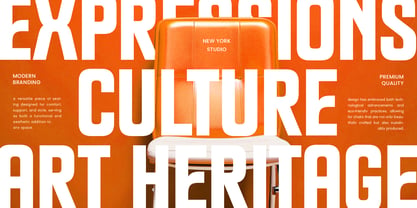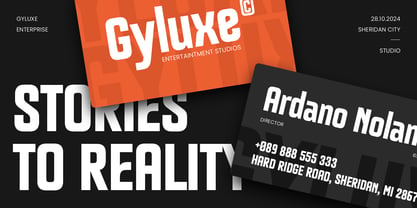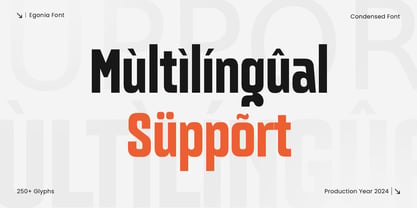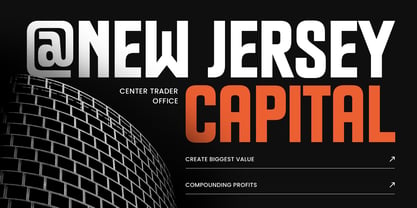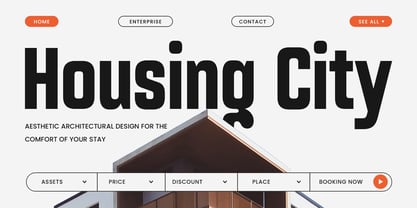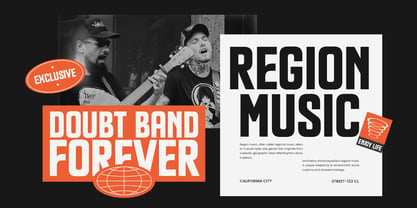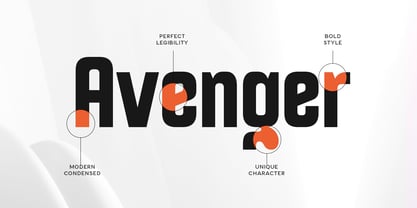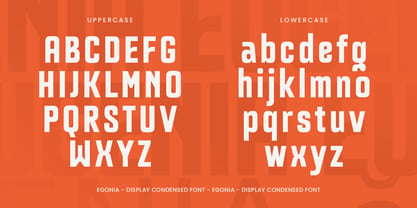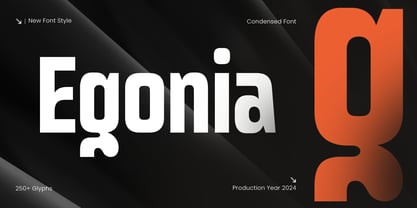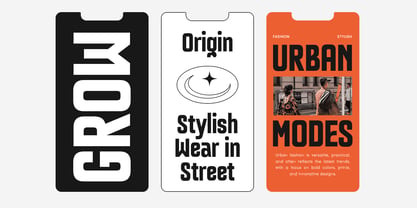
EGONIA is a display condensed font crafted to make your headlines, logos, and branding projects stand out. Its elegant and modern letterforms are perfect for creating visual impact while maintaining readability and professionalism.
Ideal for posters, editorial designs, advertisements, and branding, EGONIA brings a contemporary, stylish touch to both print and digital applications. Its condensed design ensures maximum presence without compromising space.
Font Features
Bold and stylish condensed letterforms for headlines and branding
Elegant, modern, and professional design
Includes uppercase, lowercase, numerals, and punctuation
Suitable for digital and print applications
OpenType features for versatile typographic use
Multilingual Support
Supports a wide range of languages including:
Afrikaans, Albanian, Asu, Basque, Bemba, Bena, Breton, Chiga, Cornish, Dutch, English, Estonian, Filipino, Finnish, Friulian, Galician, German, Gusii, Indonesian, Irish, Italian, Kabuverdianu, Kalenjin, Kinyarwanda, Luo, Luxembourgish, Luyia, Machame, Makhuwa-Meetto, Makonde, Malagasy, Manx, Morisyen, North Ndebele, Nyankole, Oromo, Portuguese, Quechua, Romansh, Rombo, Rundi, Rwa, Samburu, Sango, Sangu, Scottish Gaelic, Sena, Shambala, Shona, Soga, Somali, Spanish, Swahili, Swedish, Swiss, and more.
Make your designs stand out with EUGENIA – the perfect display condensed font for impactful, stylish, and modern projects. ✨️
Egonia